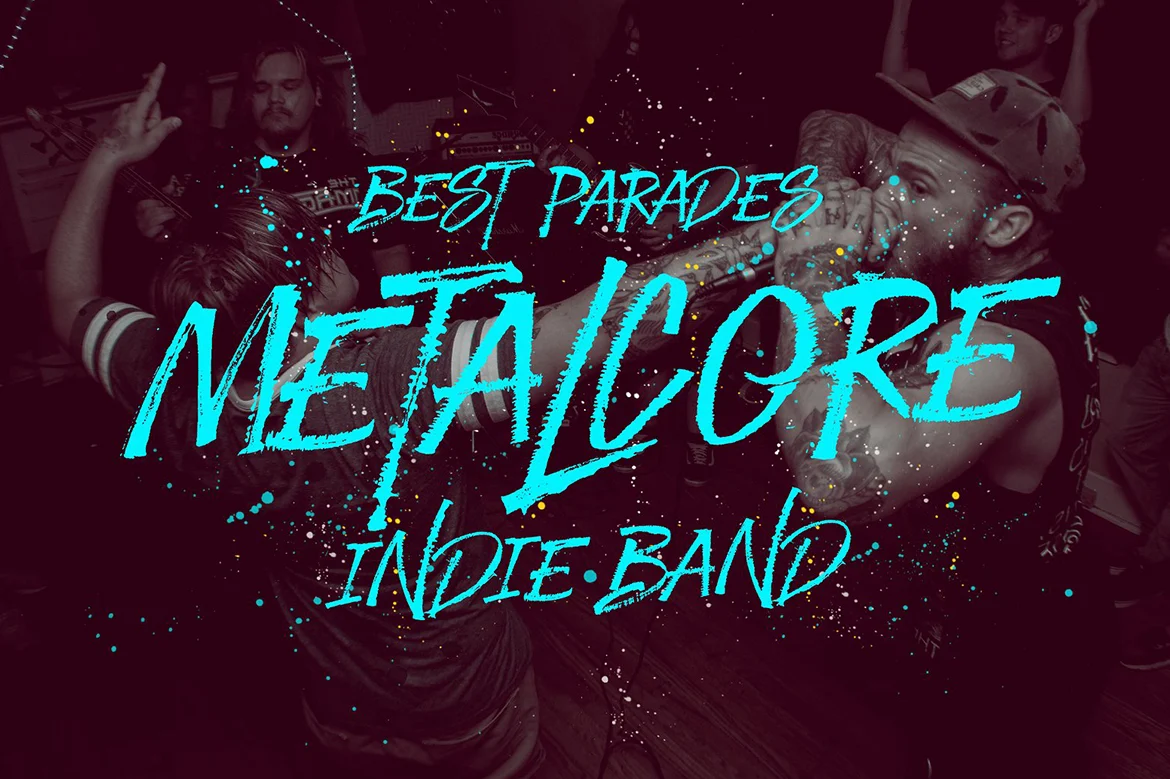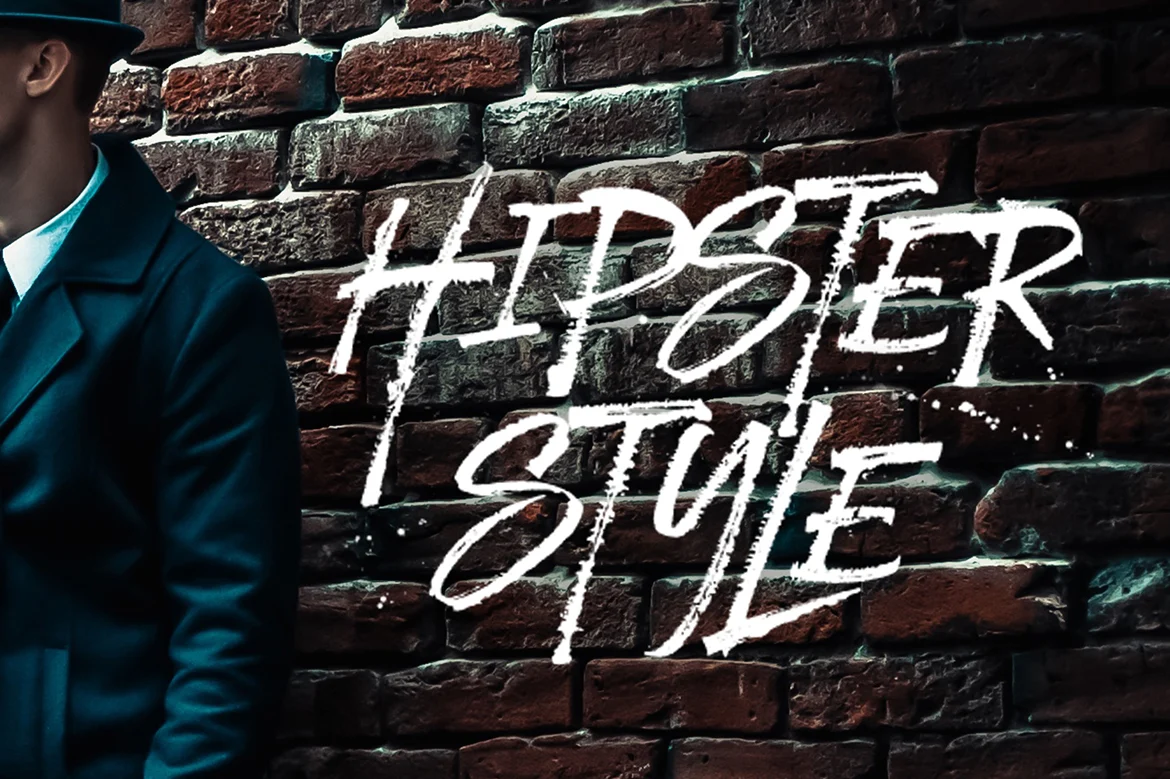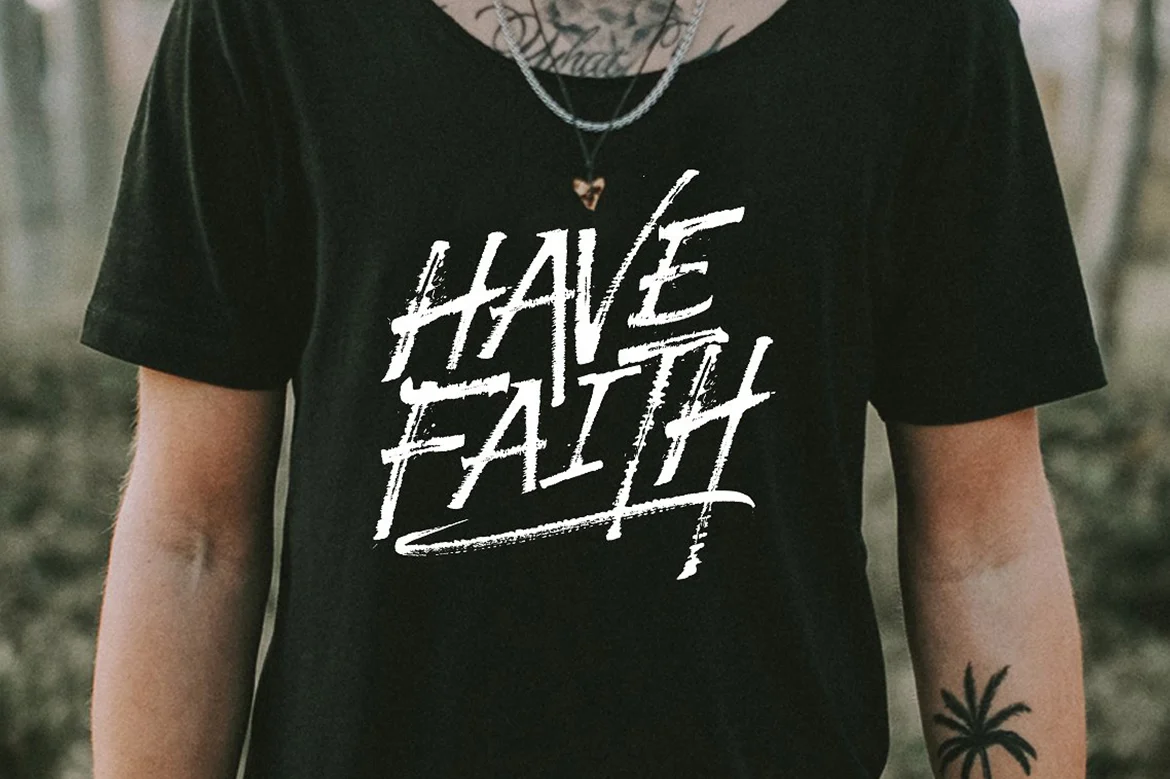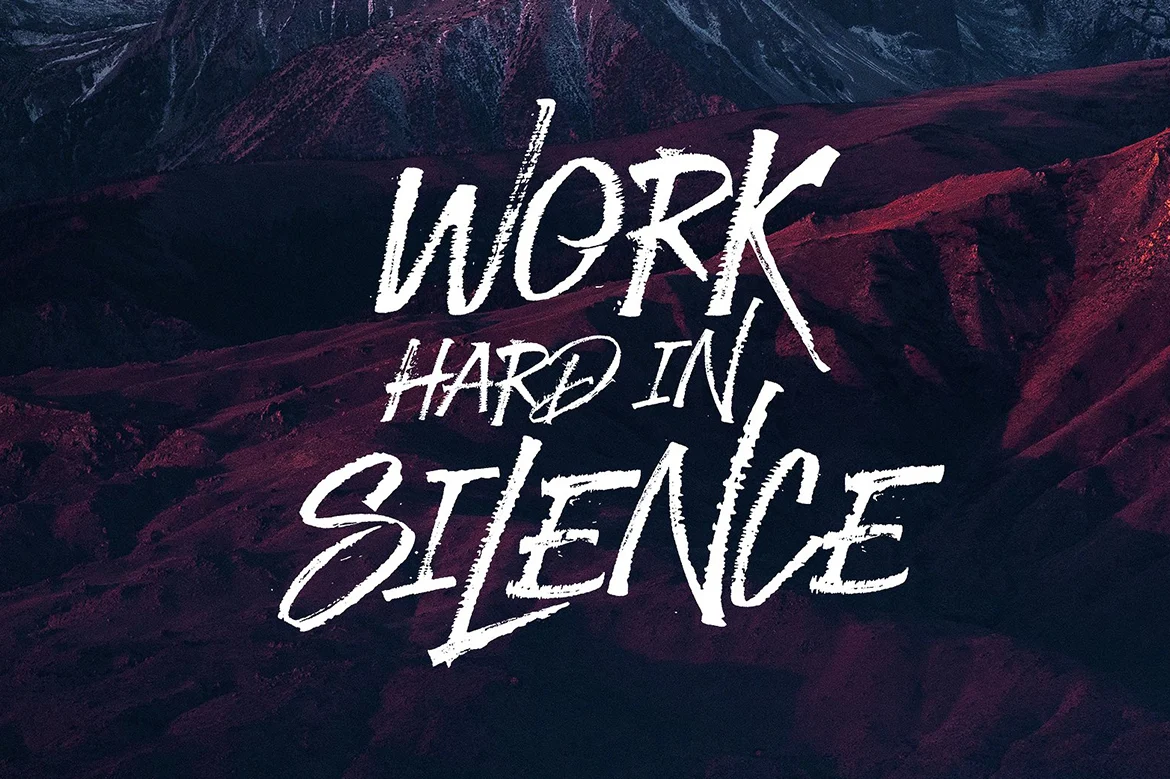
Trapstyle Typeface Font
Trapstyle is handwritten face made with Ruling Pen, this tool is usually used in calligraphy for expressive lettering. this font will tear through your text with unmistakable energy, dynamic and spontaneous flow. To help you create the look of stunning custom hand-lettering. Trapstyle comes with alternates character, ligature, upper and lowercase characters, punctuation, numerals. Also included is a bonus extras swashes, handmade designed to perfectly for headlines and short texts. Use it for magazines, t-shirt, packaging, logos, advertising, quotes, branding, posters, editorials, cover artwork, movies, websites, etc.